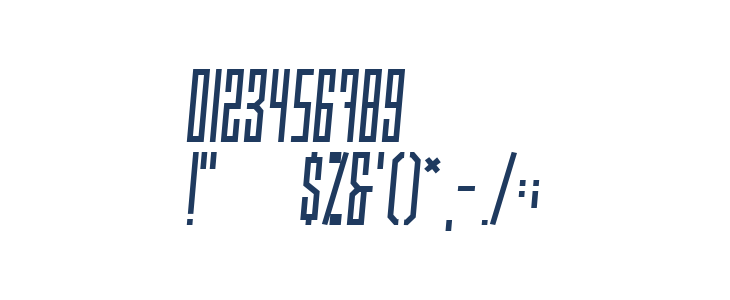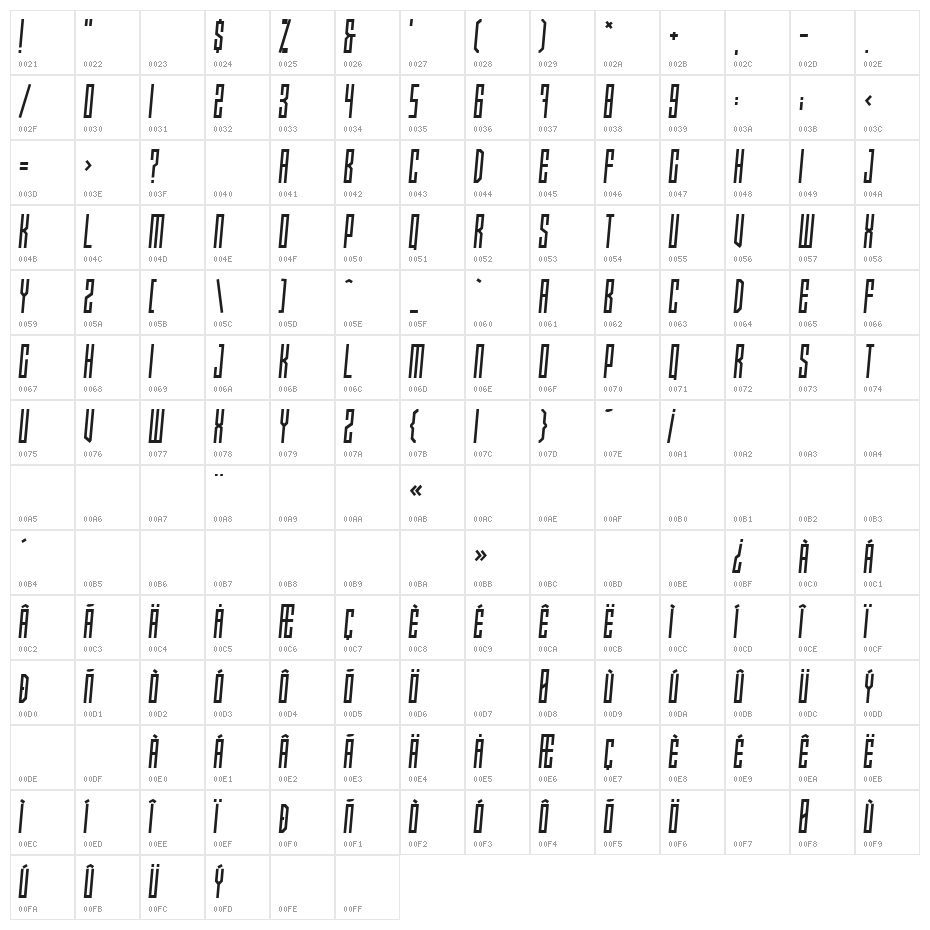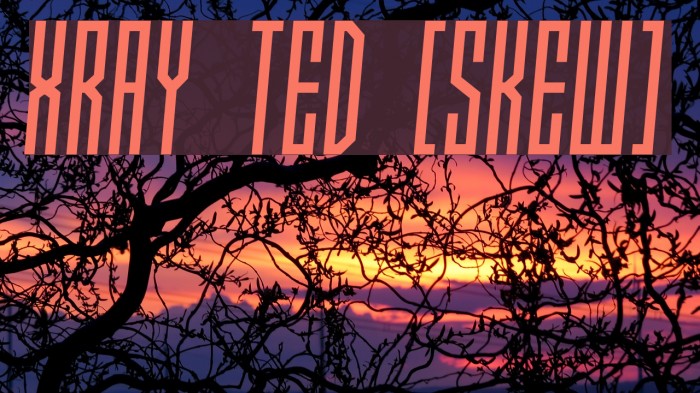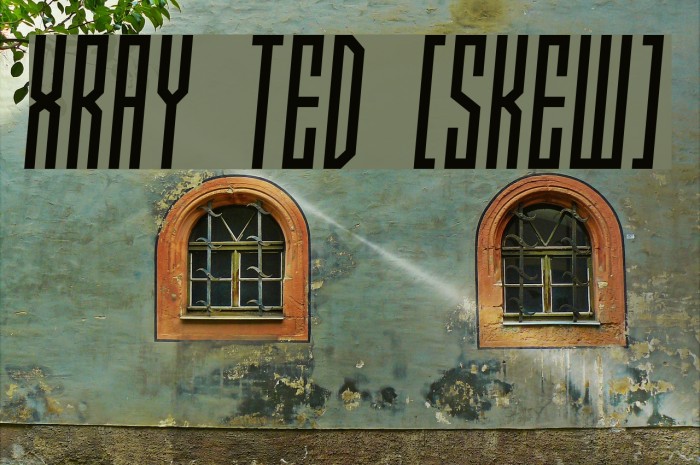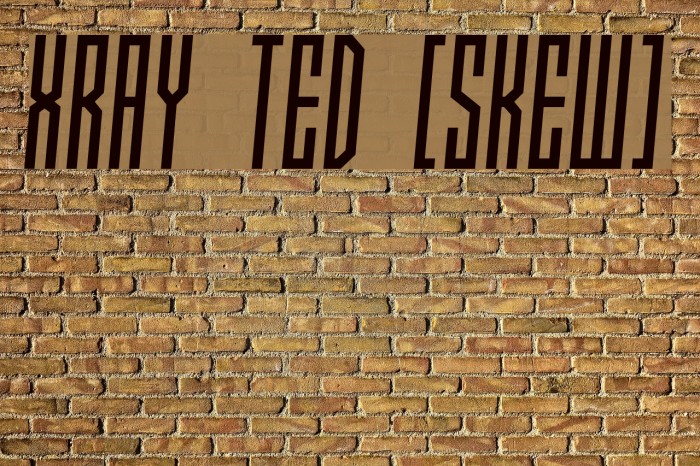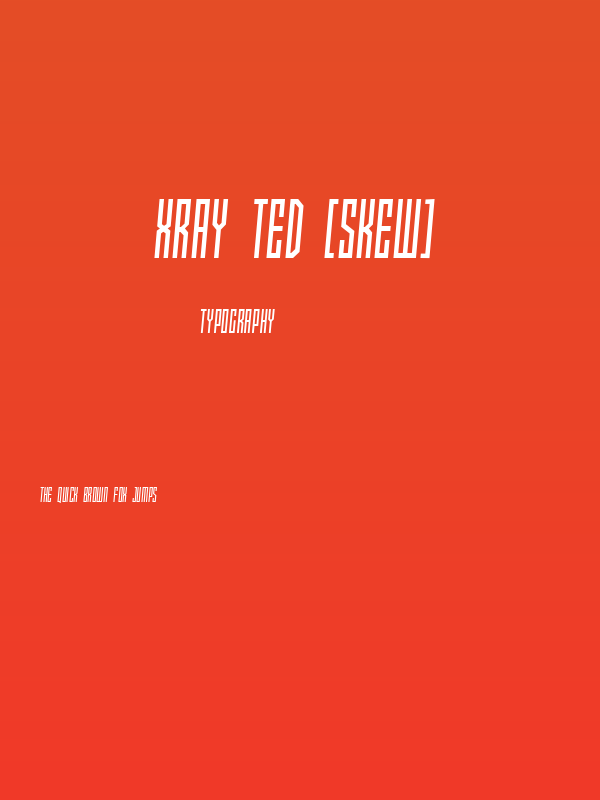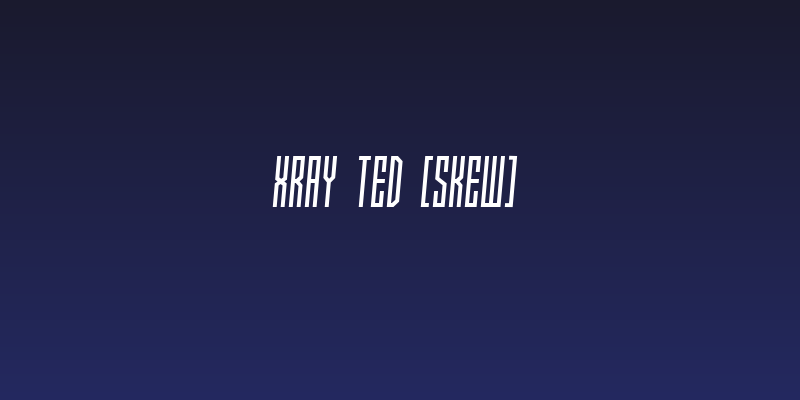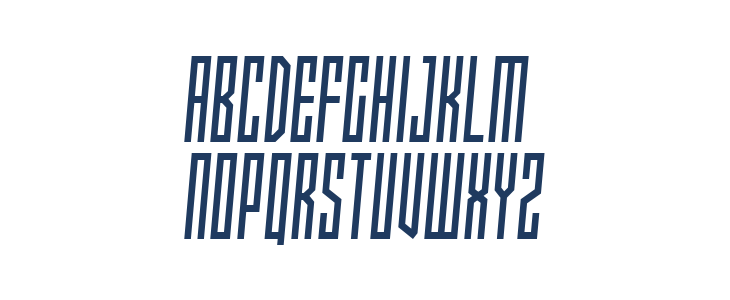
Xray Ted [skew] Font
Xray Ted [skew] Description
This font features a striking, elongated design with a distinct slant, creating a dynamic and energetic appearance. The characters are tall and narrow, with sharp angles and clean lines that convey a sense of modernity and movement. The uppercase and lowercase letters maintain a consistent style, emphasizing verticality and sleekness. Numbers and special characters are designed to match the overall aesthetic, ensuring a cohesive look across all elements. The font's unique style makes it ideal for projects that require a bold and futuristic touch.
| Proposed Projects | Ideal for futuristic branding, sports team logos, dynamic posters, and edgy editorial designs. |